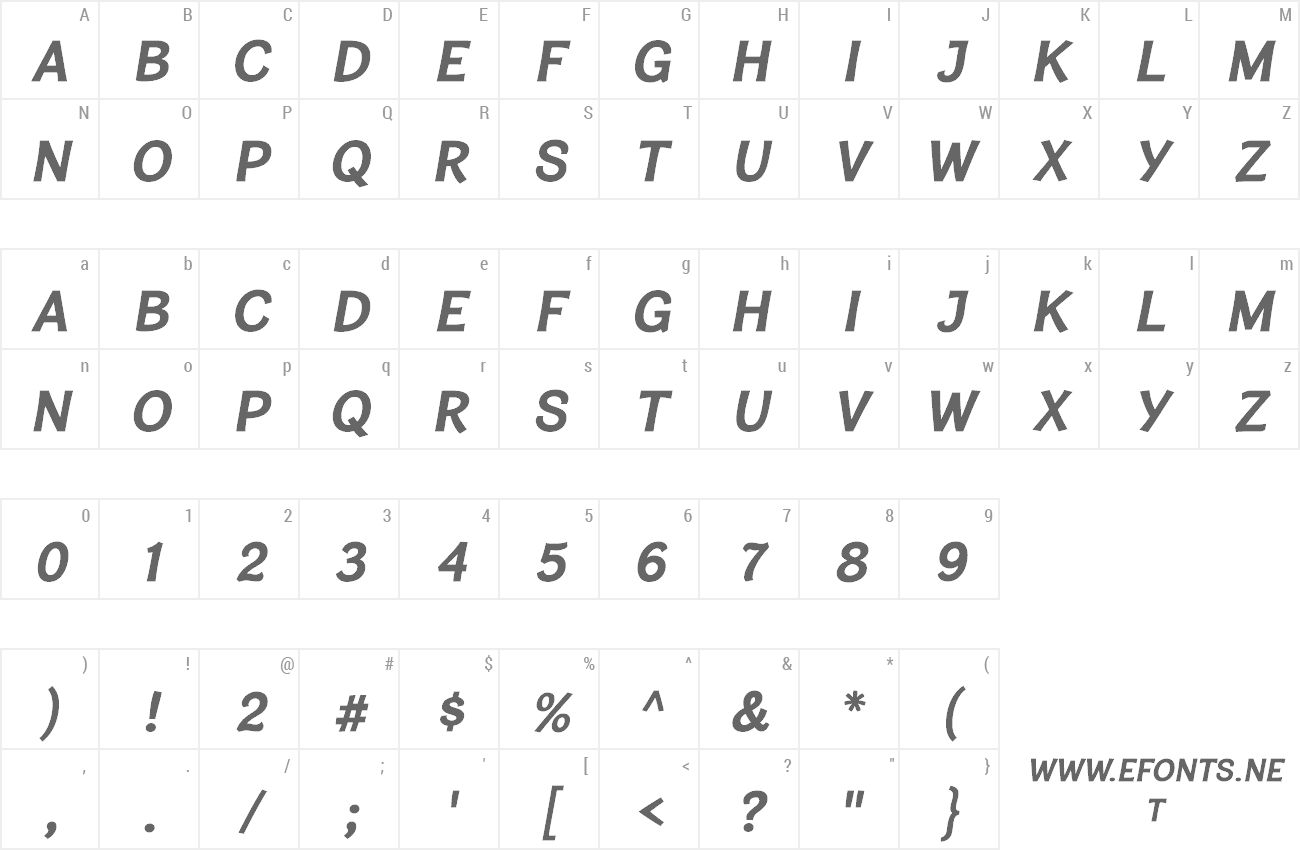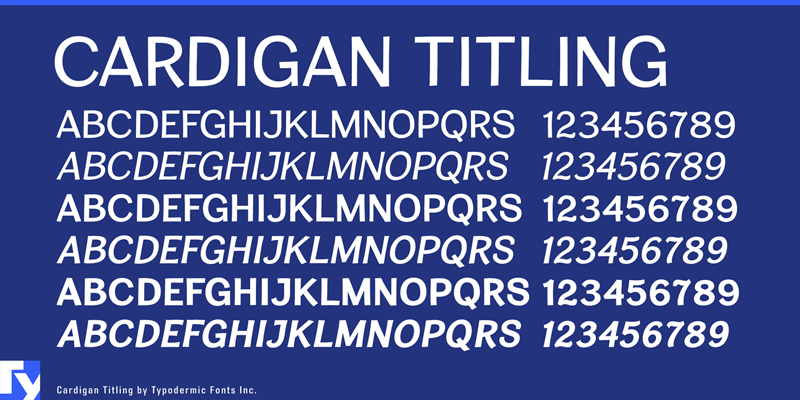
Cardigan is casual sans-serif typeface. While the line treatment is nonchalant, letterforms are clear and conventional making it one of those rare casual typefaces that perform well in large bodies of text. The italics are more naturalistic than the uprights but practical; not show-offish. Cardigan is available is 3 weights plus italics. For a version of Cardigan with lowercase, check out the regular Cardigan family. http://typodermicfonts.com/cardigan/ These fonts include a license that allows free commercial use: sometimes referred to as a desktop license. This allows you to install the fonts on a computer and use them to create posters, web graphics, game graphics, t-shirts, videos, signs, logos and more. Read the license agreement for details. If you'd like to embed these fonts in an app, ebook, on the web or anything that's not covered by the desktop license agreement, visit the link below. You'll find distributors who offer different types of licenses or you can contact me for help. http://typodermicfonts.com/cardigan-titling/ |